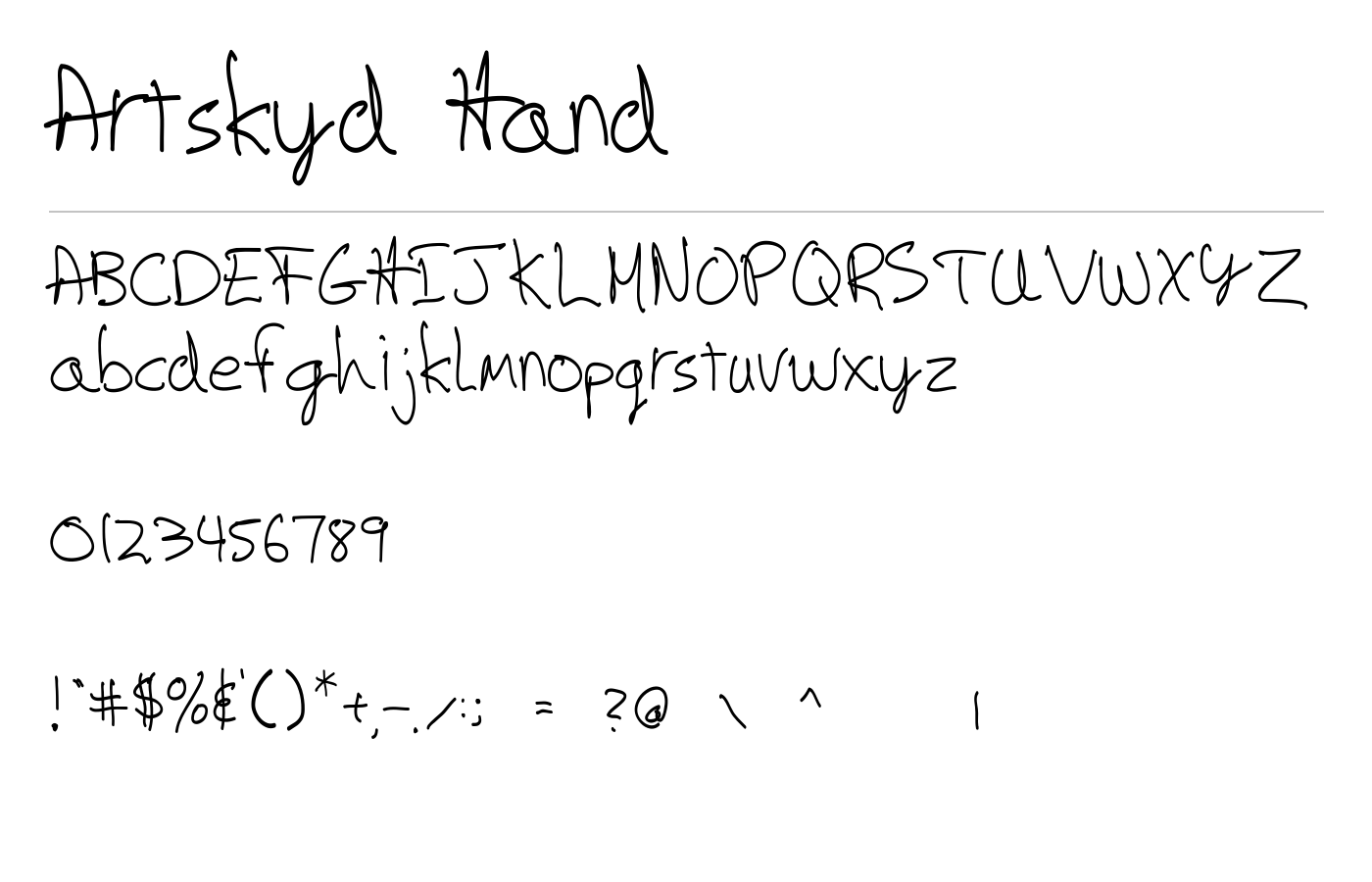
Artskyd Hand is a playful and casual handwritten font with a light, airy feel and irregular, organic strokes that mimic natural penmanship. Its thin, slightly uneven lines and unique, quirky letter shapes make it perfect for creative projects, informal designs, and personal branding that seeks a warm, approachable vibe. This font works well for invitations, greeting cards, and social media graphics where a friendly and authentic touch is desired.
Artskyd Hand Font
About Artskyd Hand Font
| Font family | Artskyd Hand Font |
| Designer | Mark Dykstra |